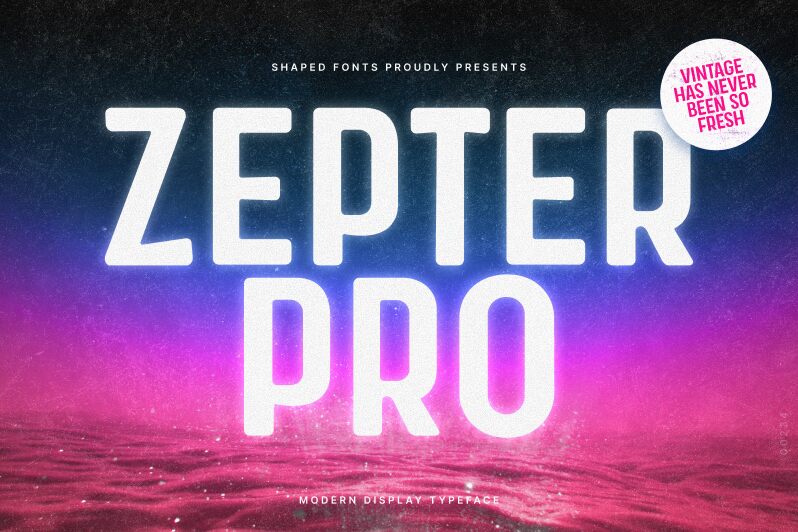
Zepter Pro
Introducing Zepter Pro an instant classic designed to work across almost any use case. Whether for your next logo project or a bold headline, its character is playful yet confident and straightforward.